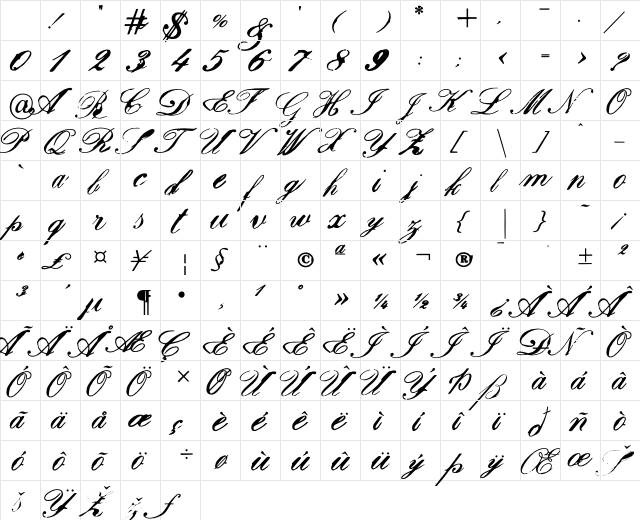
Complete ChatoBand Smooth Bold glyph index. Displaying only characters natively supported by ChatoBand Smooth Bold font.
ChatoBand Smooth is a composed and adaptable typeface that performs quietly and consistently across a wide range of design contexts. Its bold stroke weight gives it real presence on the page.